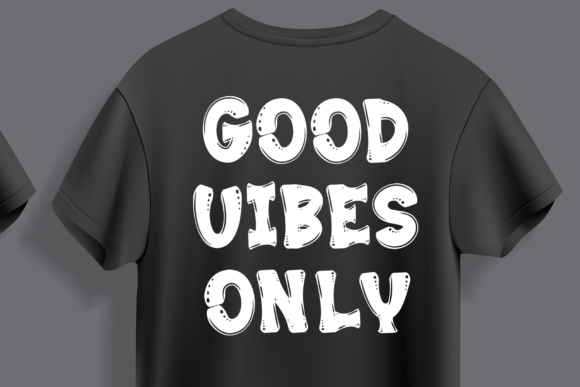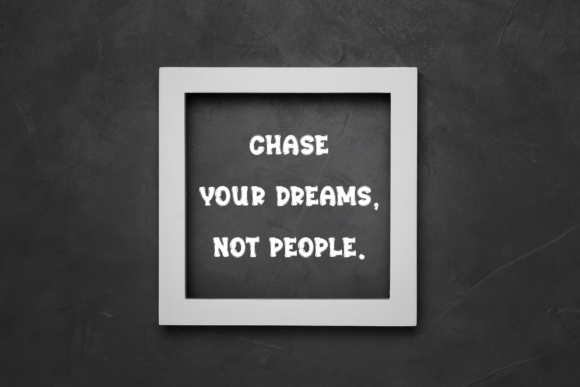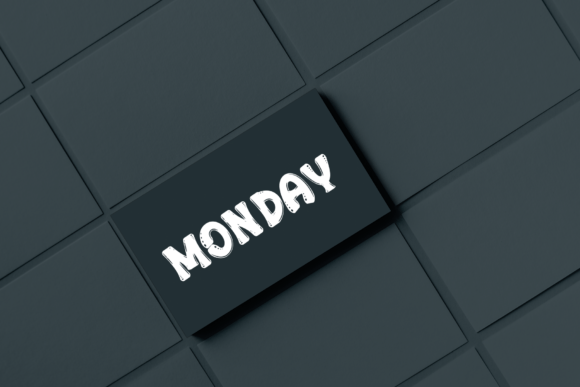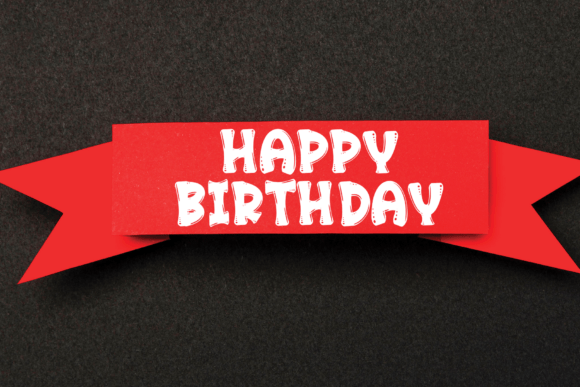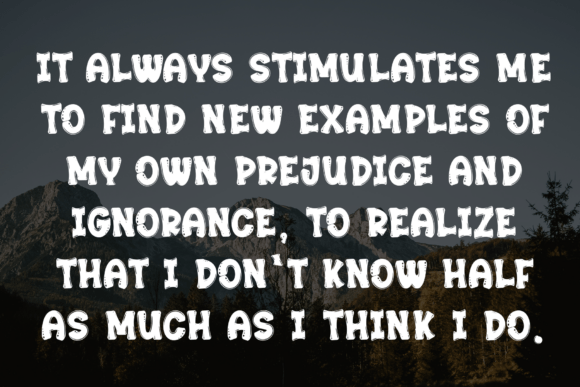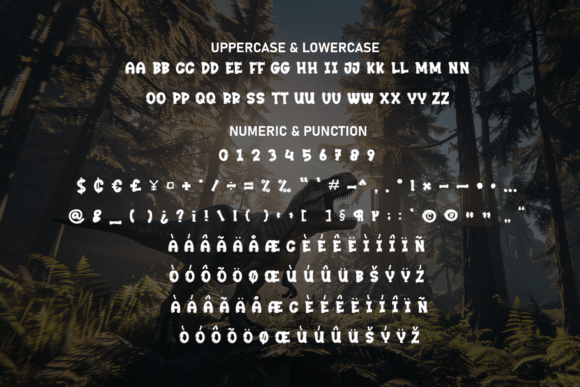
Discover the Magic of Dinoland Font: A Creative Powerhouse
Have you ever been in the middle of a design project, and suddenly, you’re struck by a creative block? You’re not alone! I recall a particularly frustrating experience while working on a wedding invitation project. My client wanted a unique, handwriting-style font that would make their special day even more memorable. After hours of scouring the internet, I stumbled upon the Dinoland Font. It was love at first sight! ✨
The Dinoland Font has been a game-changer for me, and I’m excited to share its awesomeness with you. This special creative product is designed to give you an extraordinary experience. With its latest style letters, it’s perfect for various projects, including wall displays, wedding invitations, social media post logos, advertisements, product packaging, product designs, labels, photography, watermarks, invitations, stationery, and more.
- ✅ Unique and Creative: The Dinoland Font has a distinctive handwriting style that’s sure to make your projects stand out.
While the Dinoland Font is an excellent choice, there are a few minor things to keep in mind:
- ⚠️ Learning Curve: With so many features and glyphs available, it may take some time to get familiar with the font’s capabilities.
- 🤔 Character Limitations: As with any font, there might be limitations in terms of character sets or special characters.
The Dinoland Font comes with a range of OpenType features and glyphs that can elevate your designs:
- Stylistic Alternates: Switch between different letterforms to add visual interest.
- Glyphs: Access additional characters, such as ligatures and ornaments.
The Story Behind Dinoland Font
The Dinoland Font was created by a team of designers who wanted to bring a touch of whimsy and creativity to the world of typography. Inspired by the imagination and fantasy of childhood, they crafted a font that’s both playful and elegant.